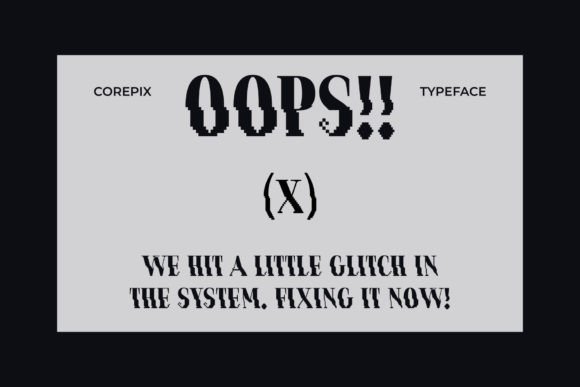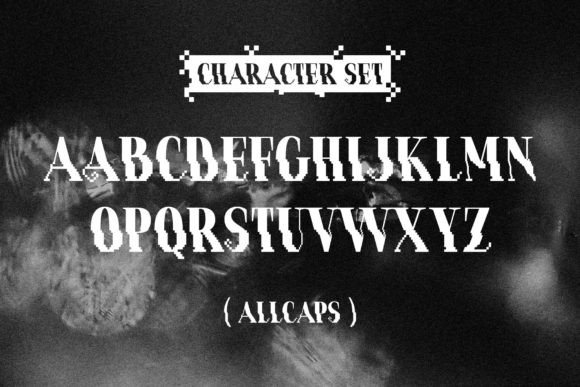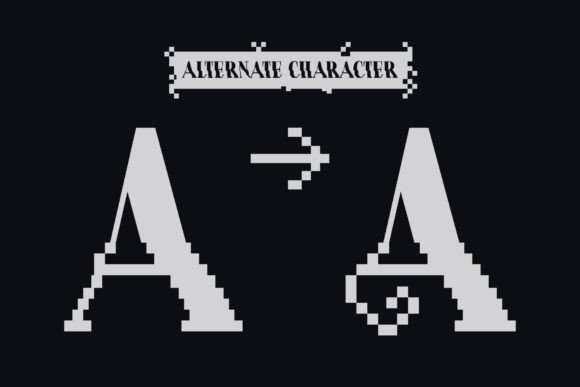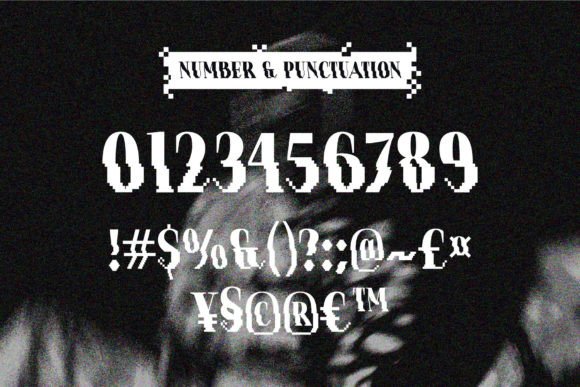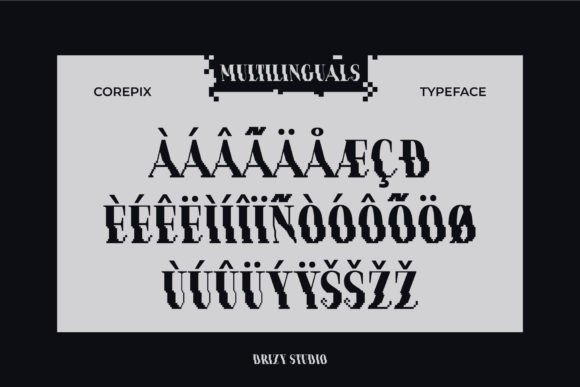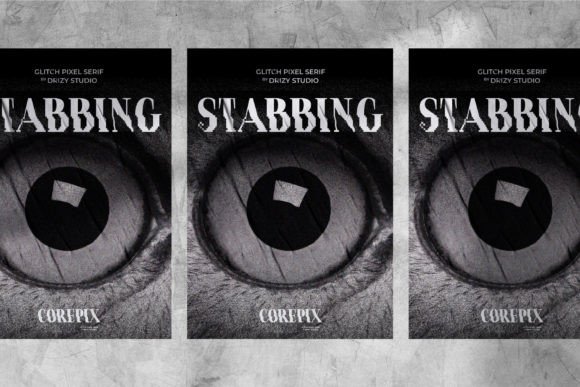
Introducing Corepix: The Revolutionary Glitch Pixel Serif Font
In the world of typography, fonts play a crucial role in conveying messages, expressing emotions, and creating visual identities. For designers and crafters, finding the perfect font that combines style, elegance, and uniqueness can be a daunting task. However, with the introduction of Corepix – Glitch Pixel Serif Font, the search is over. This cutting-edge typeface seamlessly blends the classic sophistication of a serif font with a modern twist of glitchy pixel aesthetics, making it a game-changer in the world of typography.
The Birth of Corepix
Corepix is the result of an experimental approach to font design, where creativity and innovation collide. By merging the traditional serif font with the futuristic glitch pixel style, Corepix offers a distinctive and attention-grabbing visual experience. This unique combination makes it perfect for projects that demand a bold and contemporary look, such as branding, advertising, packaging, and digital media.
Key Features of Corepix
- Glitch Pixel Aesthetics: Corepix boasts a futuristic glitch pixel style that adds a touch of edginess to any design.
- Serif Elegance: The classic serif font structure provides a sense of sophistication and refinement.
- Bold and Contemporary: Corepix makes a statement with its bold and modern design, perfect for projects that require a striking visual impact.
- Versatile: Suitable for a wide range of applications, from digital media to print materials.
What Makes Corepix Stand Out
In a sea of fonts, Corepix stands out for its innovative design and versatility. Here are a few reasons why:
- Unique Visual Identity: Corepix’s glitch pixel serif design creates a distinctive visual identity that sets it apart from other fonts.
- Emotional Connection: The font’s bold and modern aesthetic evokes emotions and grabs attention, making it perfect for projects that require a strong visual impact.
- Crossover Appeal: Corepix appeals to both traditional and digital designers, making it a versatile choice for various projects.
Use Cases for Corepix
Corepix is an incredibly versatile font that can be used in a variety of projects, including:
- Branding and Logo Design: Create a bold and memorable brand identity with Corepix.
- Advertising and Marketing: Make a statement with eye-catching ads and promotional materials.
- Packaging Design: Add a touch of modern elegance to product packaging.
- Digital Media: Use Corepix in digital projects, such as websites, social media graphics, and video game design.
Tips for Using Corepix Effectively
To get the most out of Corepix, here are some tips for using the font effectively:
- Experiment with Sizes: Play with different font sizes to create visual hierarchy and emphasize key messages.
- Mix and Match: Combine Corepix with other fonts to create a unique typography style.
- Pay Attention to Color: Choose colors that complement the font’s bold and modern aesthetic.
Corepix – Glitch Pixel Serif Font is a revolutionary typeface that redefines the world of typography. With its unique blend of classic elegance and modern glitchy pixel aesthetics, Corepix is perfect for designers and crafters looking to make a bold statement. Whether you’re working on branding, advertising, packaging, or digital media, Corepix is the perfect choice for projects that demand a cutting-edge visual identity.